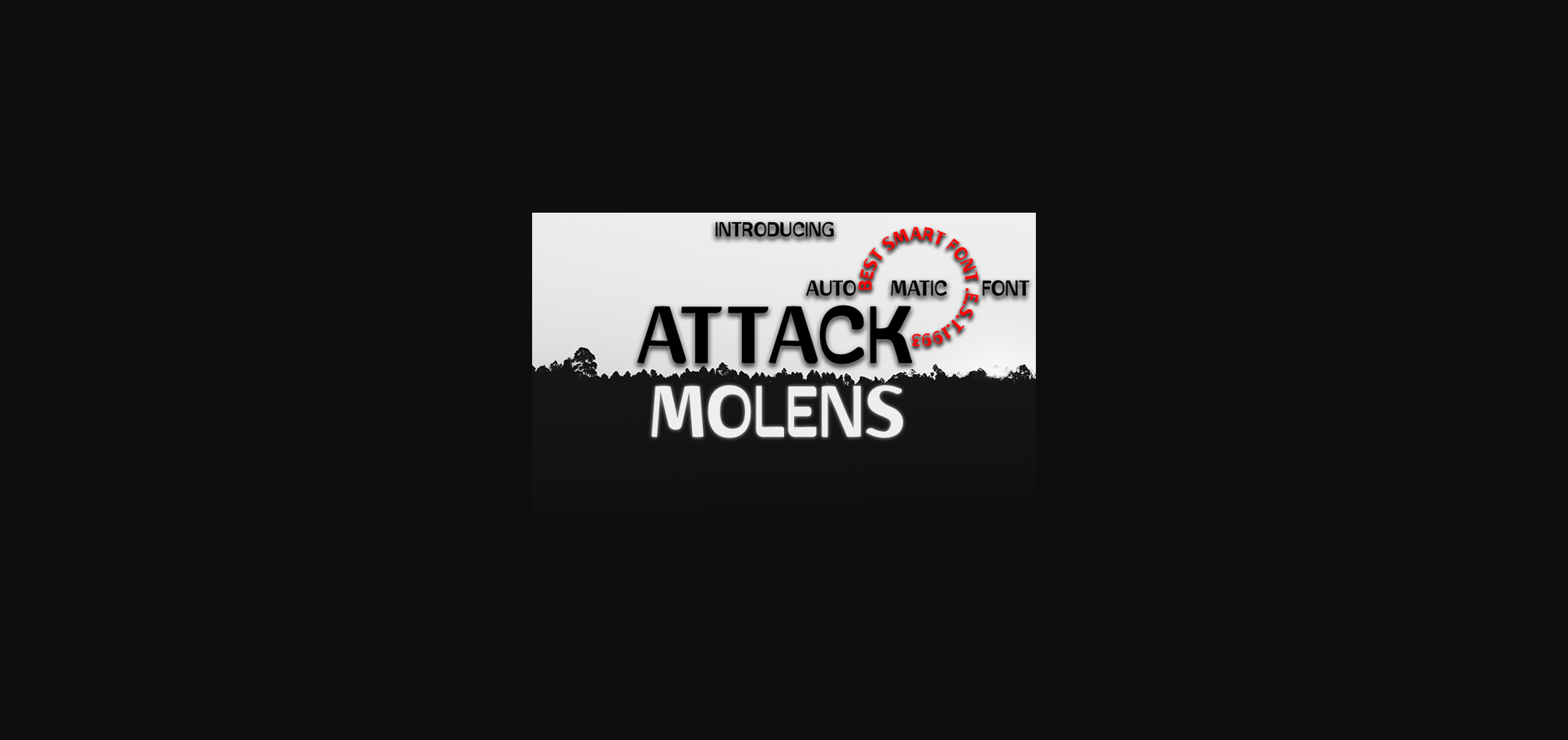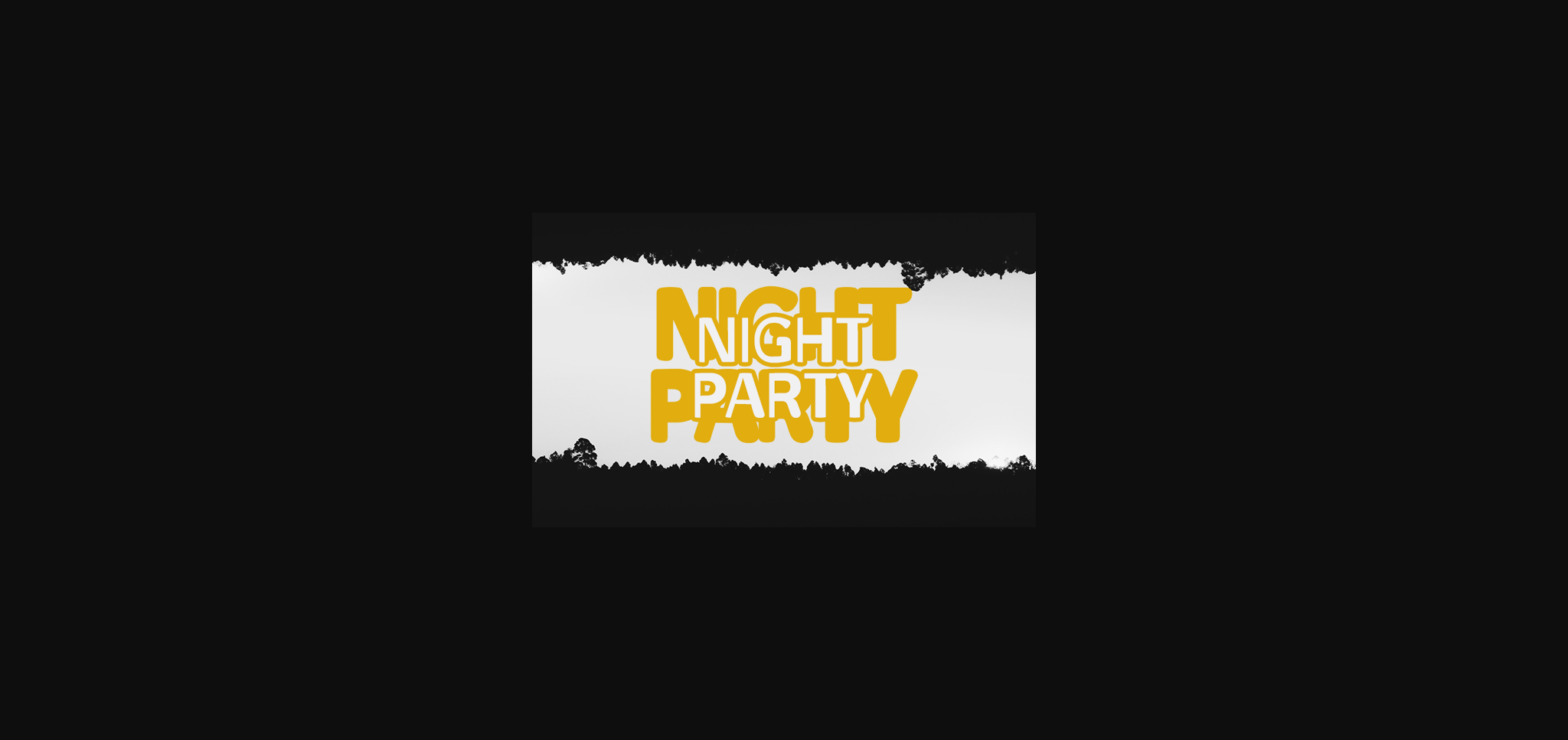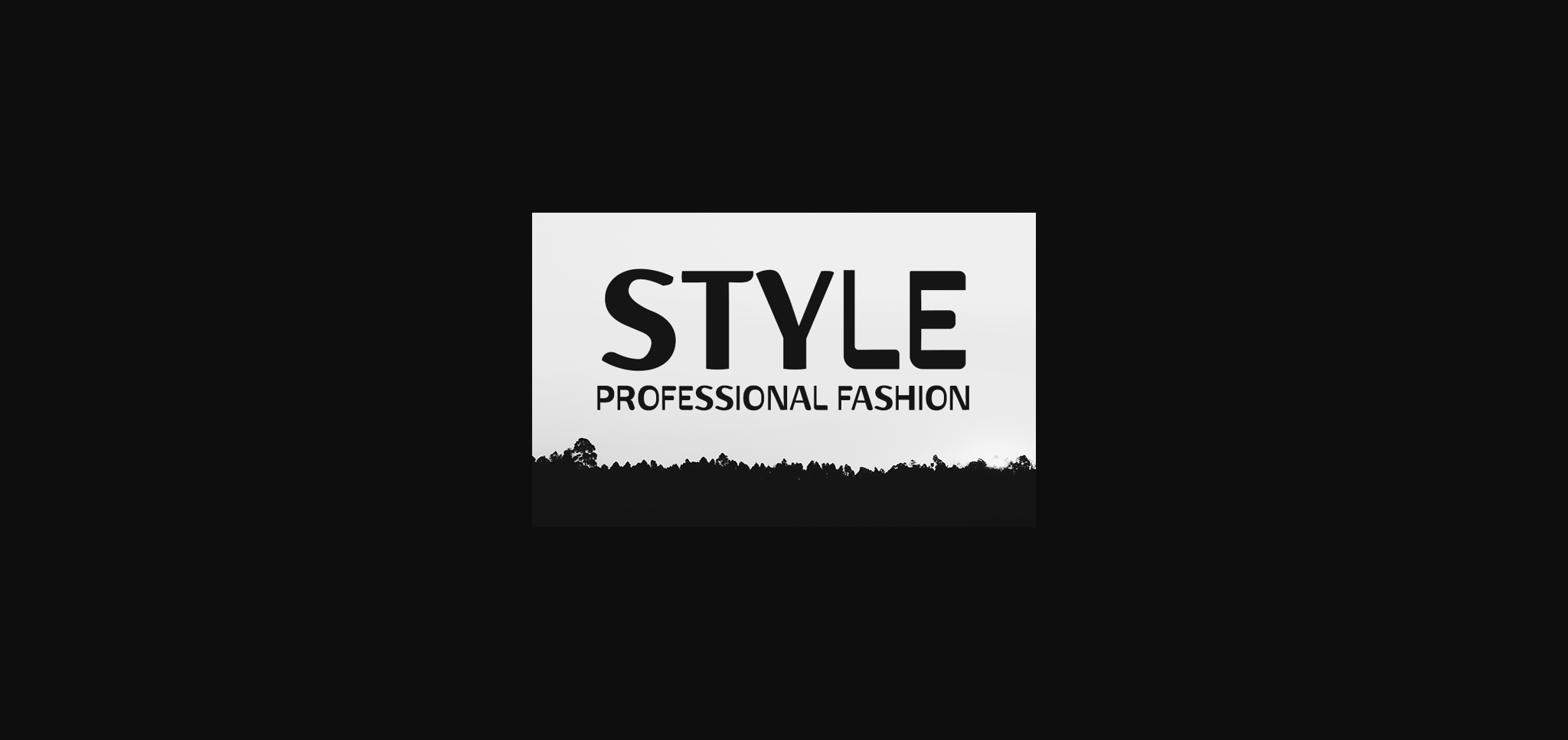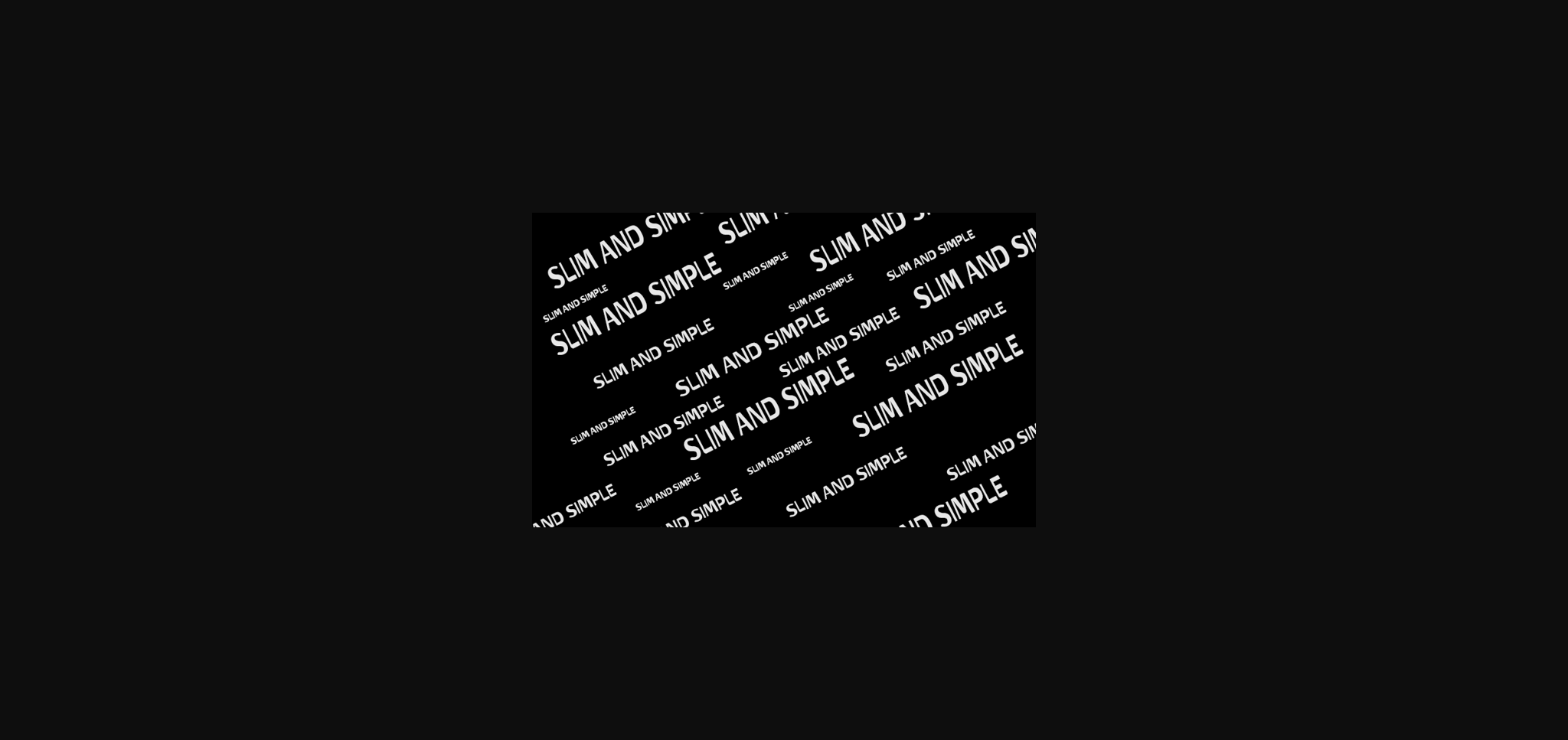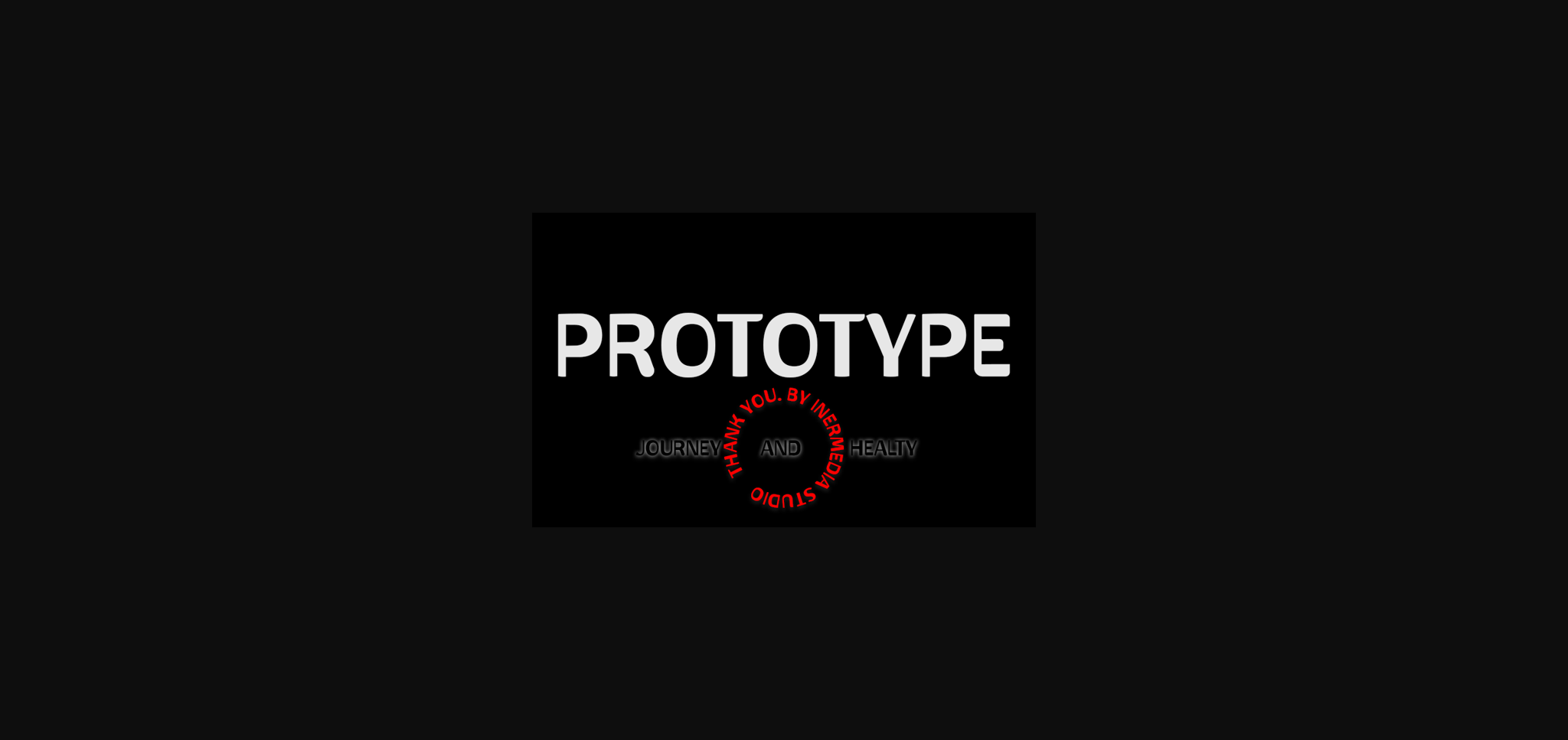
Attack Molens Font
About Attack Molens Font
Attack molens embodies fun, quirkiness and authenticity. This enchanting sans serif font will turn any creative idea into a true standout.